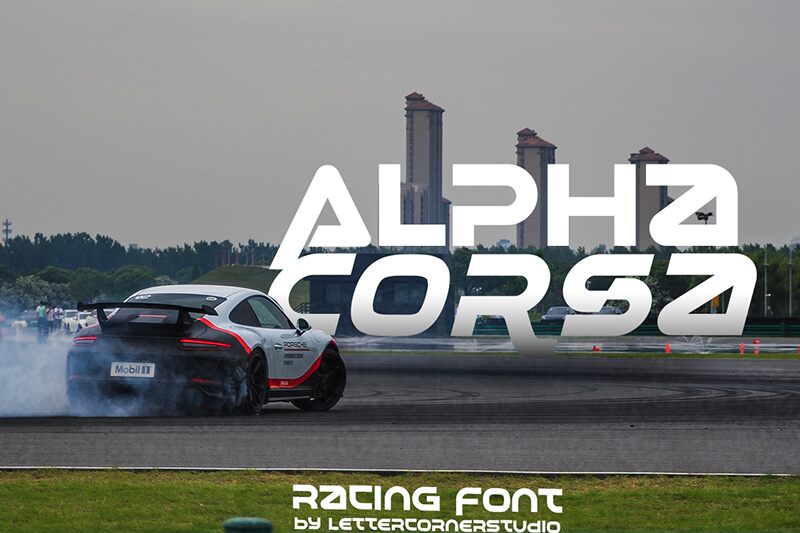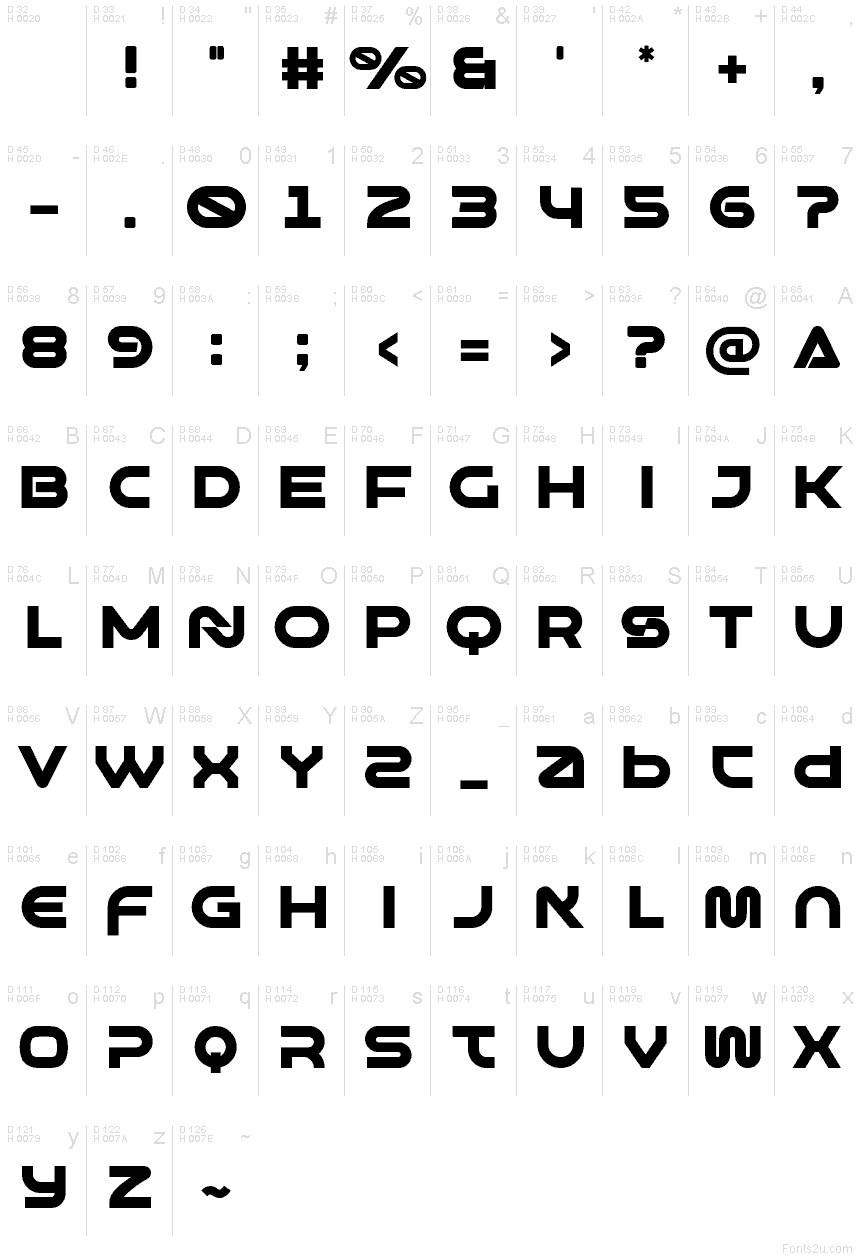
Alphacorsa font by Mocha Frappuccino is a free techno display font that feels tuned for speed. Its sleek, cutaway forms and rounded-square bowls read like airflow channels, giving headlines a glossy, wind-tunnel polish. The rhythm is tight and purposeful, with angular joins that lock letters together like body panels—great when you need a futuristic voice that still holds up at a glance.
Using Alphacorsa, you’ll hit the gas on racing posters, game titles, esports jerseys, automotive badges, sci‑fi movie promos, and tech event branding. This free font also shines on gadget packaging and UI overlays where a fast, modern tone matters. Pair it with a neutral grotesk for body copy, and add a touch of extra tracking to let those streamlined shapes breathe.